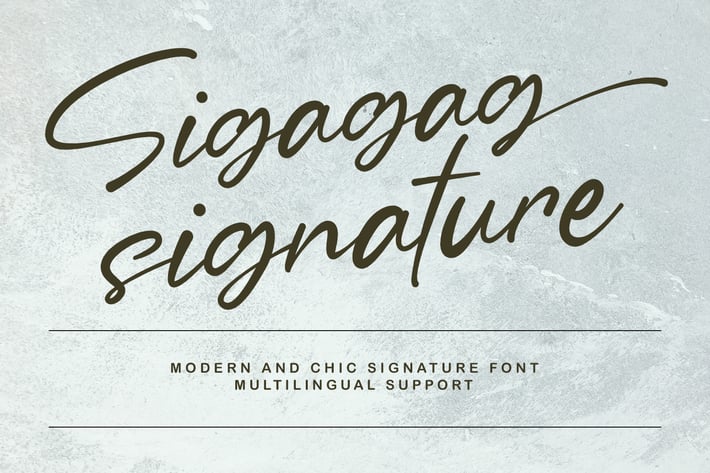
Sigagag Signature Display Font
Give your designs an authentic brush handcrafted feel. “Sigagag Signature Display Font” is perfectly suited to signature, stationery, logo, typography quotes, website header, branding and more.